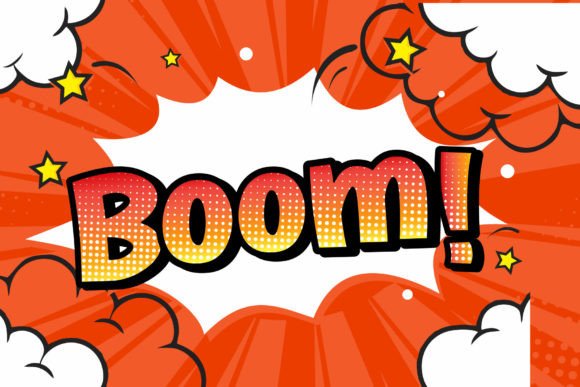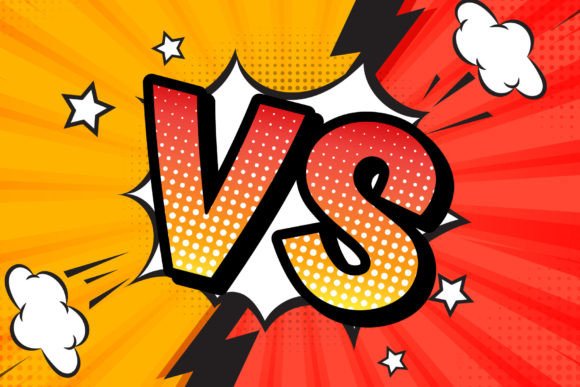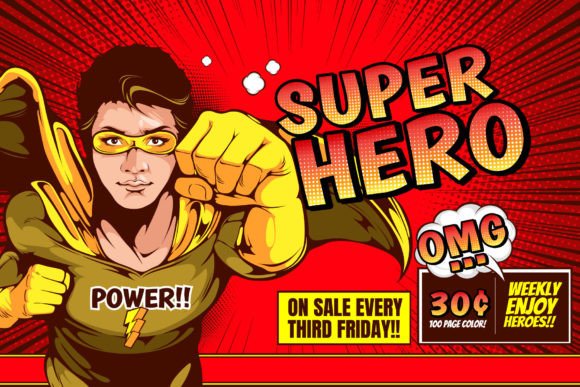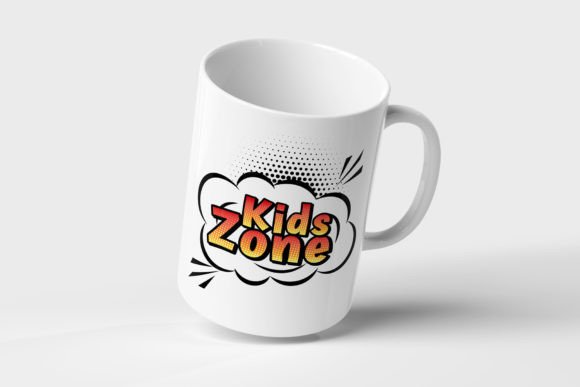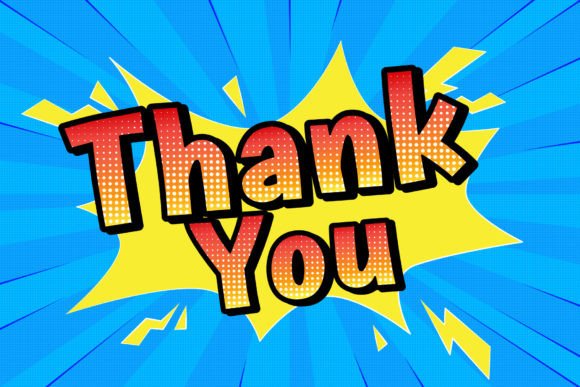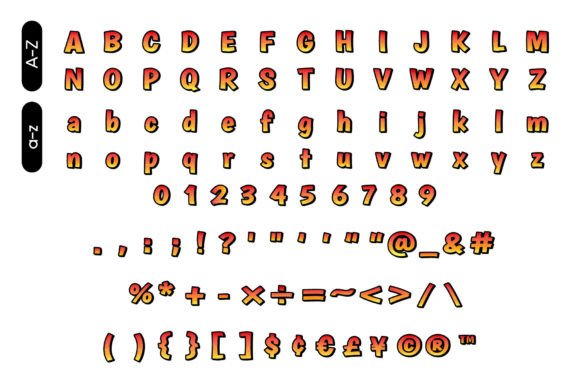
The Ultimate Guide to Fox Comic Font: Adding a Pop of Fun to Your Designs
I’ll never forget the time I was working on a project for a client who wanted a fun and playful font to match their brand’s personality. I scoured the internet for the perfect font, but nothing seemed quite right. That was until I stumbled upon Fox Comic Font. It was love at first sight! 😍 This cool and fun color font has become a staple in my font library, and I’m excited to share its awesomeness with you.
An Honest Review of Fox Comic Font
So, what makes Fox Comic Font so special? Let’s dive into the good stuff! 🤩
- ✨ Unique color font: Fox Comic Font is not your average font. Its color capabilities make it perfect for titles or words that need a more dramatic emphasis.
- ✅ Highly versatile: Whether you’re working on a project for a client or a personal creative endeavor, this font can enhance any creation.
- 🎉 Fun and playful: Fox Comic Font is perfect for designs that require a lighthearted and humorous touch.
Now, let’s talk about some small quirks or limitations. 🤔
- ⚠️ Limited language support: Fox Comic Font may not support all languages, so be sure to check the character set before using it for a project.
- ⚠️ Color inconsistencies: Some users have reported issues with color consistency across different platforms. However, this can be easily fixed by adjusting the font settings.
A Practical Guide to Using Fox Comic Font
The Backstory of Fox Comic Font
Fox Comic Font was designed with one goal in mind: to create a fun and playful font that’s perfect for designs that need a bit of personality. The designer, inspired by classic comic books and cartoons, set out to create a font that’s both bold and whimsical.
| Font Name | Fox Comic Font |
| What is Fox Comic Font? | Fox Comic Font is a cool and fun color font that’s perfect for titles or words needing a more dramatic emphasis. |
| Is Fox Comic Font suitable for body text? | No, Fox Comic Font is best used for titles or headings. Its bold and playful design makes it less suitable for body text. |
In conclusion, Fox Comic Font is a fantastic addition to any designer’s font library. Its unique color capabilities, versatility, and playful personality make it perfect for a wide range of design projects. Whether you’re a seasoned designer or a creative hobbyist, Fox Comic Font is definitely worth checking out.